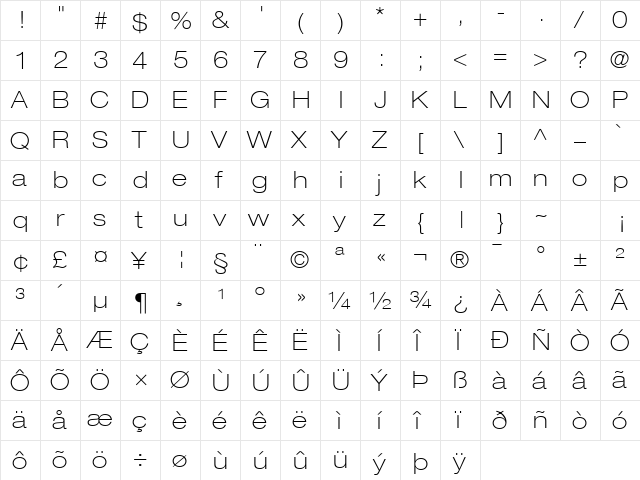
Context Reprise ThinExp SSi Normal
Design Context for Context Reprise ThinExp SSi Typeface
Context Reprise ThinExp SSi offers clean, dependable letterforms without strong stylistic allegiance, making it a practical choice for designers who need flexibility. The delicate stroke weight brings airiness and refinement to layouts.